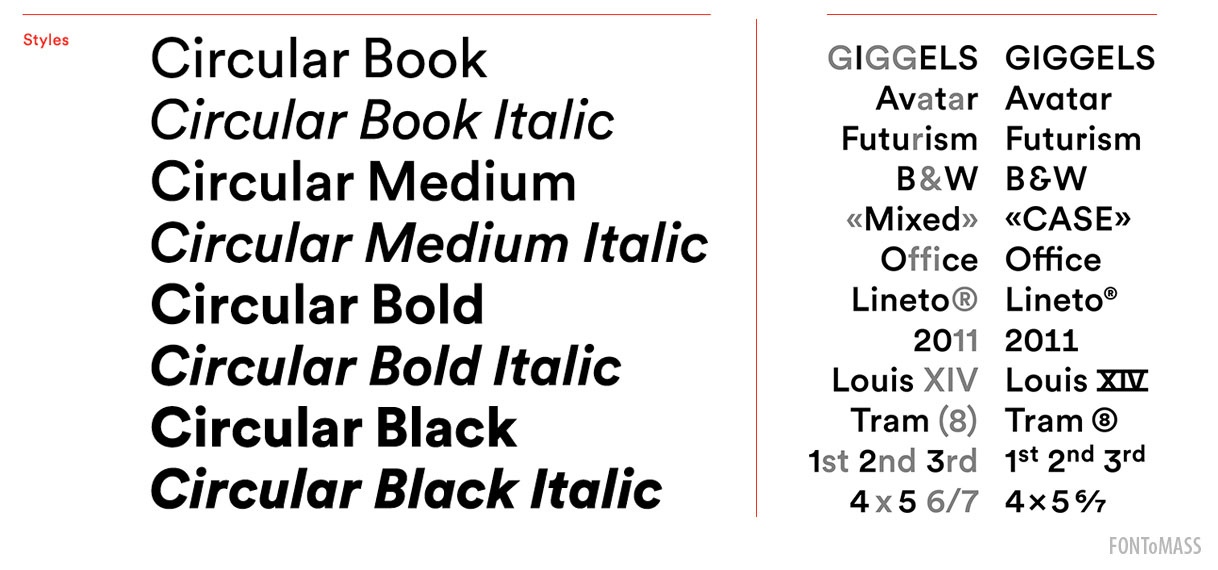
Circular Std Font
This versatile geometric sans-serif typeface is perfect for modern tech branding, minimalist corporate identities, clean web interfaces, contemporary packaging design, progressive marketing campaigns, digital product development, streamlined presentations, and systematic brand communications.
What makes this font exciting is its perfect synthesis of geometric precision and human warmth that creates exceptional versatility without sacrificing personality or clarity. The carefully balanced circular forms and neutral character make it incredibly adaptable across industries, while the systematic design approach ensures consistent performance from body text to large display applications, making it a reliable foundation for comprehensive brand systems.
The Circular Std Font family includes thin, light, book, medium, bold, and black weights, each with matching obliques, providing designers with extensive typographic flexibility for complex hierarchical design systems and multi-platform communications.
The distinctive character of Circular Std Font lies in its systematic approach to type design that balances geometric purity with practical functionality. Each letterform has been optimized for both digital screens and print applications, ensuring consistent readability and visual quality across websites, mobile applications, signage, and traditional marketing materials. This technical excellence makes it particularly valuable for user interface design, responsive web development, corporate annual reports, and comprehensive brand guidelines where consistent visual communication is essential.
Professional designers will appreciate this font's ability to serve as a dependable workhorse for diverse design challenges while maintaining contemporary relevance. From startup pitch decks to enterprise software interfaces, from product packaging to architectural signage, Circular Std Font delivers reliable performance and visual appeal. The font's extensive OpenType features include multiple figure styles, fractions, and comprehensive language support, ensuring international usability while maintaining the clean, systematic aesthetic that defines modern professional communication standards across industries requiring trustworthy, accessible typography solutions that adapt seamlessly to evolving digital and print environments.